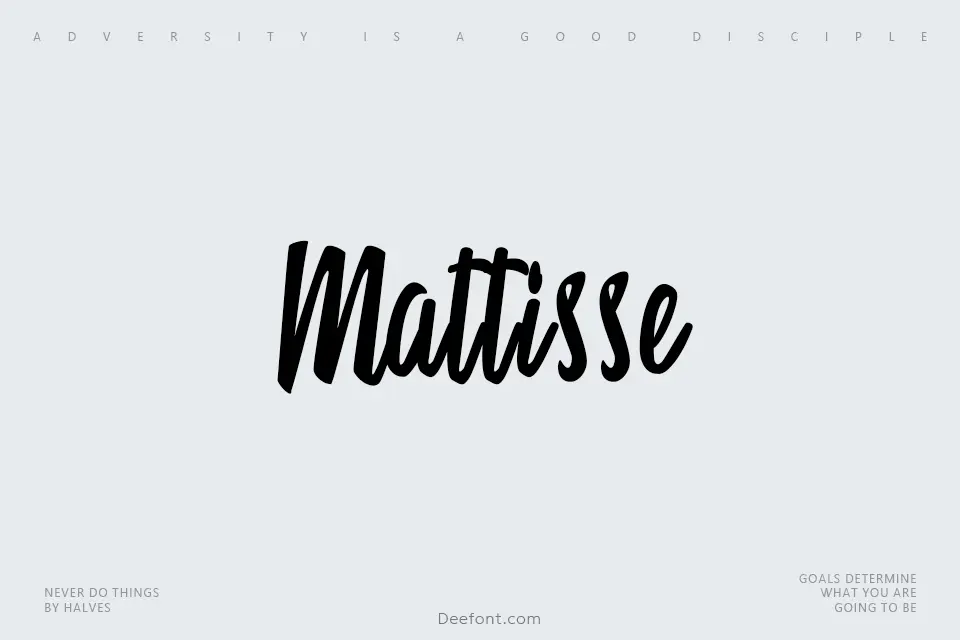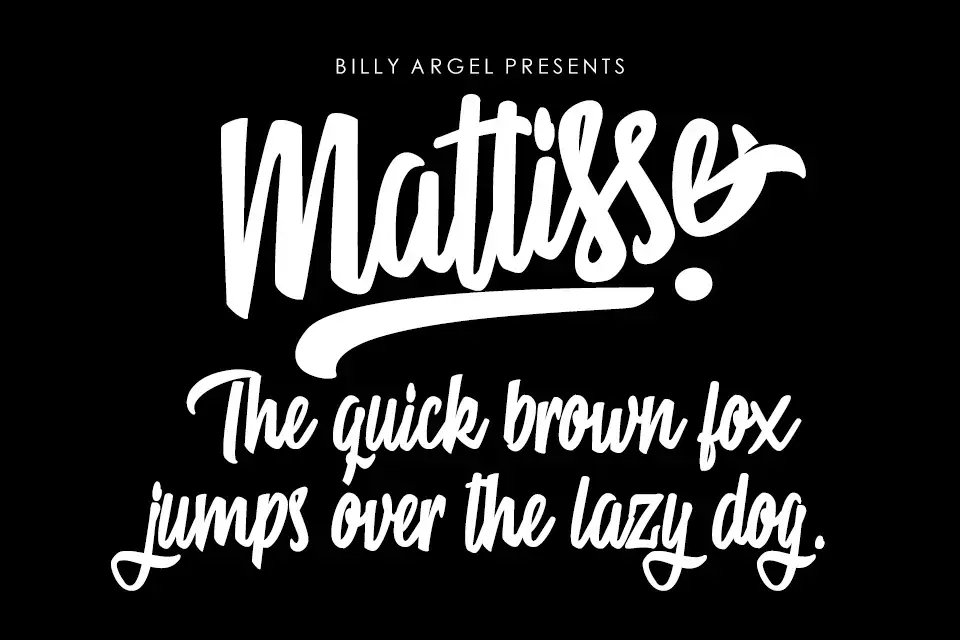
Mattisse Font
Mattisse Personal Use is a bold, high-impact script display font with an old-school graffiti vibe and rough brush edges that feel hand-painted and rebellious. Its tall, expressive letterforms, heavy strokes and distressed texture create instant drama, making it ideal for horror movie titles, Halloween posters, underground music covers, streetwear branding and bold social media graphics that need a raw, cinematic look.
Designed by:Billy Argel Fonts ®Website